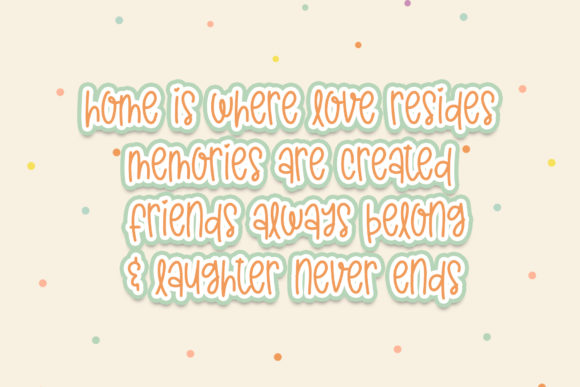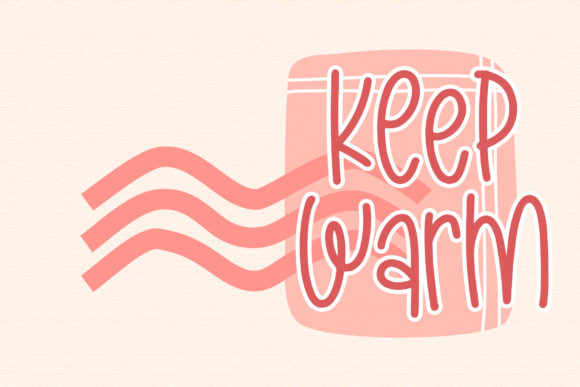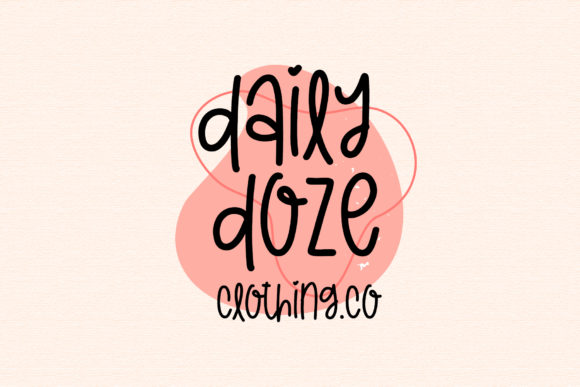
Introduction to Flying Home Font
Flying Home is a quirky and cute handwritten font.
This dazzling font will turn any creative idea into a standout .
Flying Home Font offers exceptional quality and versatility, making it a valuable addition to your design toolkit. Whether you’re creating for personal projects or commercial use, Flying Home Font delivers professional results.